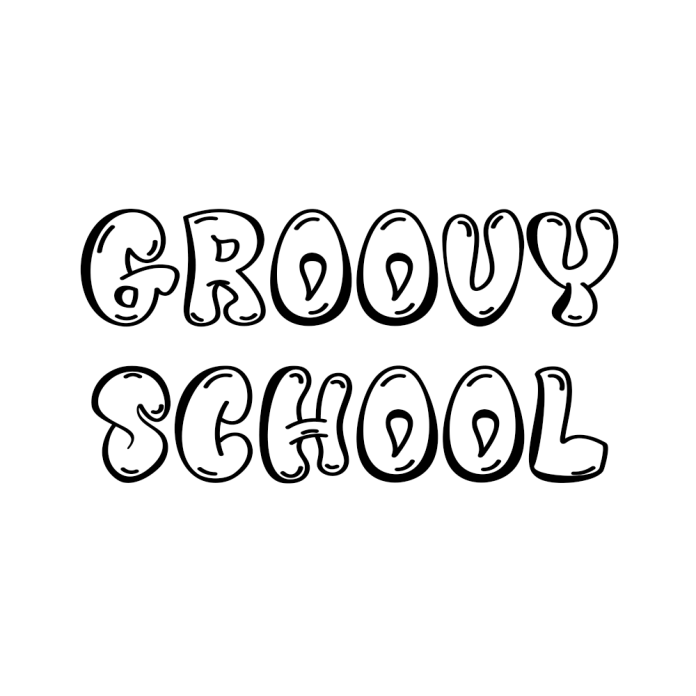
Groovy School Font is a fun and friendly handwritten font. Whether you’re using it for crafts, digital design, presentations, or making greeting cards, this font has the potential to become your favorite go-to font, no matter the occasion!